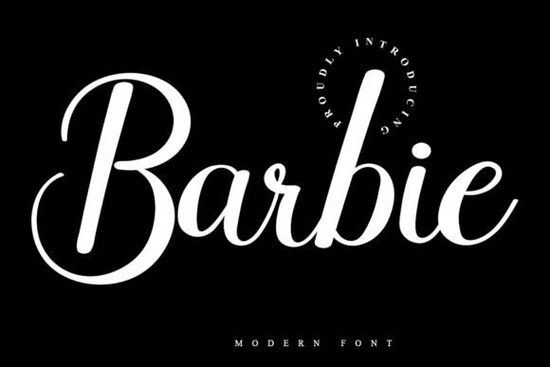
If you’ve been searching for a script font that blends playful charm with refined elegance, the Barbie Font might be exactly what your next project needs. Designed to mimic graceful handwriting, it brings a personal, inviting feel to everything from wedding stationery to boutique branding without looking overly casual or stiff.
What makes this font stand out is its balance. The letterforms have soft curves and subtle flourishes that feel feminine but not frilly, making it versatile enough for both heartfelt thank-you notes and professional business cards. If you work with clients who want warmth and sophistication in their visuals think bridal shops, lifestyle coaches, or handmade gift businesses this typeface can help communicate that tone instantly.
Where does the Barbie Font work best?
Because of its handwritten aesthetic and clean lines, the Barbie Font shines in designs where personality matters. Here are a few real-world uses that designers and small business owners love:
- Wedding invitations and save-the-dates – pairs beautifully with floral motifs and muted color palettes.
- Custom greeting cards – adds sincerity to birthday, anniversary, or sympathy messages.
- Logo accents – ideal for boutiques, bakeries, or wellness brands wanting a human touch.
- Print-on-demand products – mugs, tote bags, and wall art featuring short quotes look effortlessly stylish.
- Social media graphics – especially for inspirational quotes or seasonal promotions.
Keep in mind: like most script fonts, readability drops at very small sizes. Stick to headlines, short phrases, or display text rather than body copy.
How does it compare to other handwritten fonts?
If you’ve browsed Creative Fabrica’s script collection, you’ve probably seen alternatives like LazyDog, which has a more relaxed, brush-pen vibe, or Roselya Script, known for its dramatic swashes and formal flair. The Barbie Font sits comfortably between them less casual than LazyDog, but more approachable than Roselya.
For projects needing cozy intimacy, you might also consider Heart Warming, which leans into rounded, friendly letterforms. Or if your design calls for cheerful energy, Wonder Day offers bouncy, upbeat strokes. Each has its place, but Barbie strikes a rare balance: polished enough for premium branding, yet warm enough for personal keepsakes.
Tips for using the Barbie Font effectively
To get the most out of this typeface, keep these practical suggestions in mind:
- Pair it wisely. Combine with a simple sans-serif (like Montserrat or Lato) for contrast. Avoid pairing with another script it can create visual clutter.
- Use generous spacing. Slightly increase letter-spacing (tracking) if letters feel too tight, especially in uppercase or all-caps settings.
- Limit line length. Keep sentences short. Long lines in script fonts become hard to follow.
- Test print quality. If you’re creating physical products, print a sample first some delicate strokes may disappear on low-resolution printers.
And remember: while the name might evoke nostalgia, this font isn’t just for retro-themed projects. Its modern proportions make it surprisingly adaptable to contemporary designs.
Who should consider this font?
This font is especially useful if you:
- Create custom stationery for weddings or events
- Run an Etsy shop selling printable art or digital templates
- Design logos for lifestyle, beauty, or wellness brands
- Produce social content that relies on quote graphics
- Enjoy hand-lettering but want a consistent, scalable alternative
It’s not meant for technical documents or data-heavy layouts but for anything that benefits from a human, heartfelt touch, it’s a reliable choice.
Quick checklist before using the Barbie Font:
- ✅ Confirm your project needs a handwritten, elegant script
- ✅ Pair with a clean, neutral secondary font
- ✅ Use only for headlines, names, or short phrases
- ✅ Test readability at your final output size